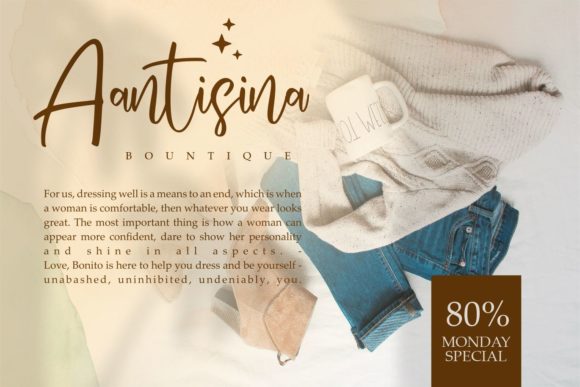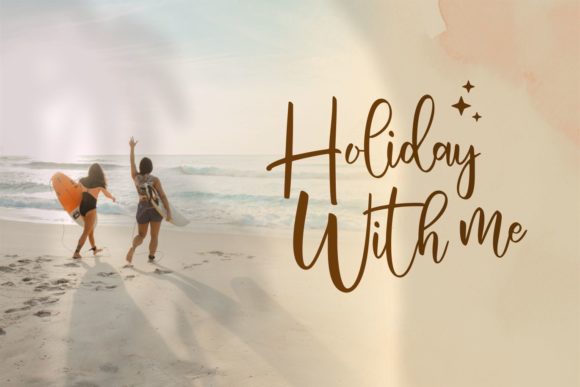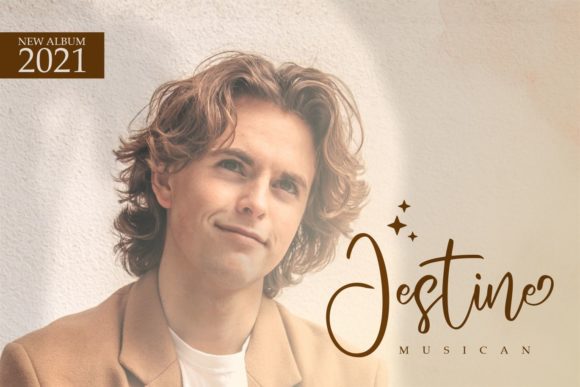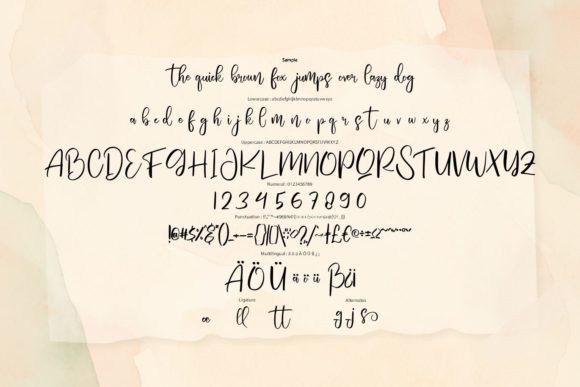
About Ballines Font
Ballines is an elegant script font with a contemporary atmosphere and impeccable form, inspired by timeless classic calligraphy. Not too thin and not too thick, balanced and varied, this font was designed to enhance the beauty of your projects.